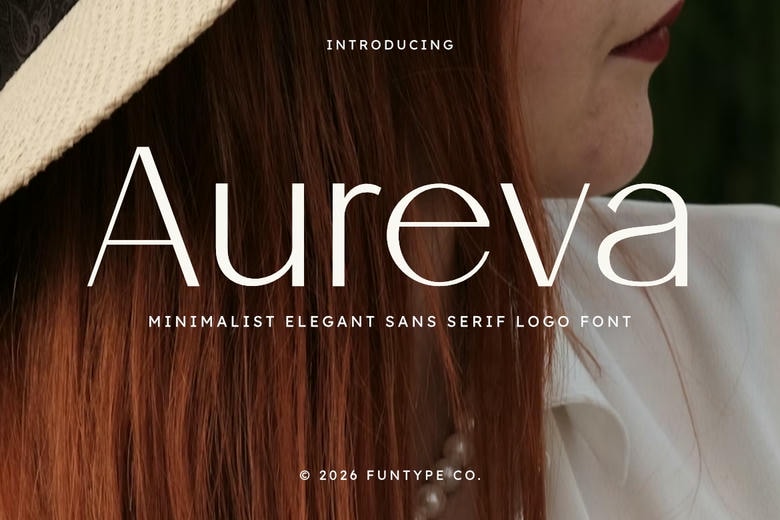
Aureva Font
Aureva is a modernized sans serif typeface that is engineered in minimal grace and elegant proportions. With its clean lines and modern geometry structure, Aureva is the ideal typography to use by a designer who intends to produce premium brand identities and smooth and professional logos.
Its open and lightweight letterforms give it a refined appearance that exudes the feel of quiet luxury. Aureva is best suited to environments where clarity and simplicity are paramount consequently making it the best option in the context of boutique signage, fashion editorial layouts, and high quality product packaging.
Aureva Sans Serif Font